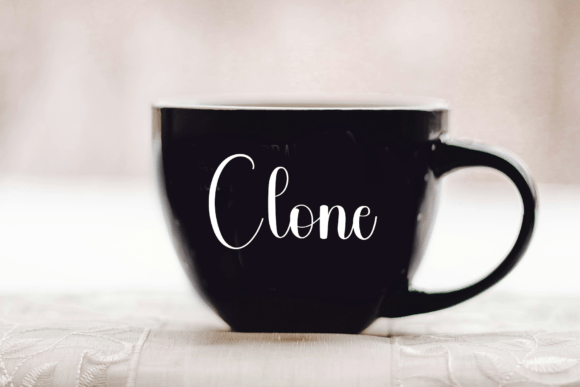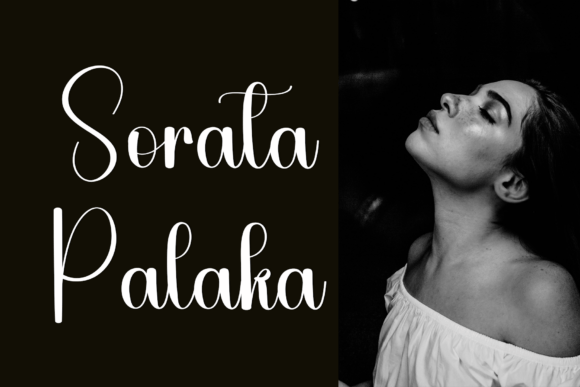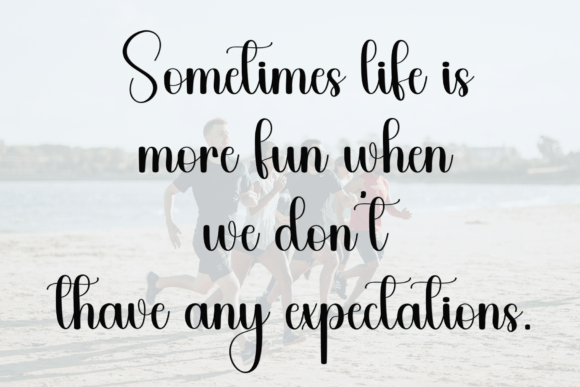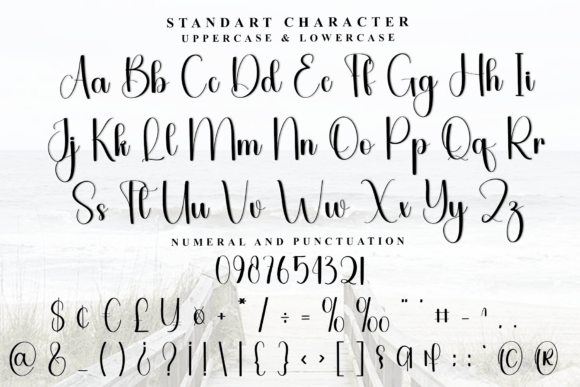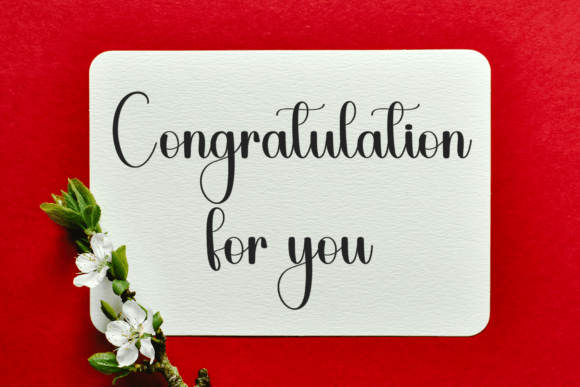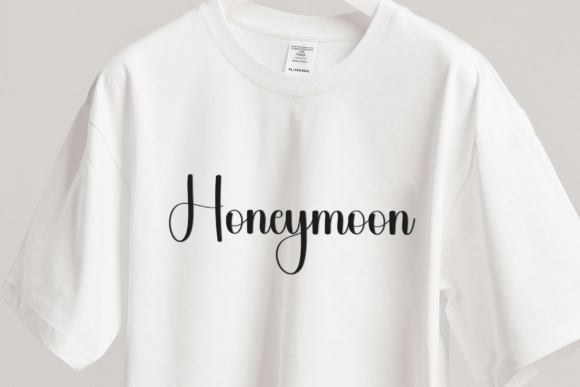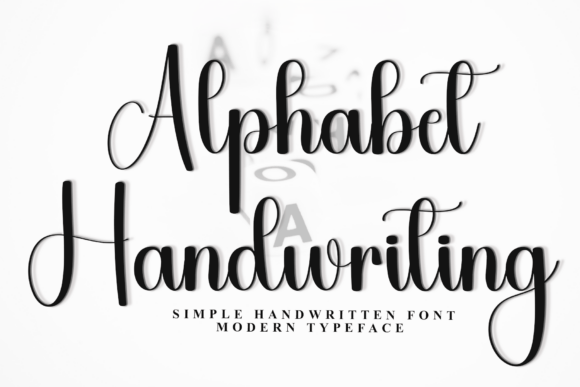
Introducing Alphabet Handwriting Font: A Festive and Merry Typeface for the Holiday Season
Are you looking for a typeface that captures the spirit of the holiday season? Do you want to add a touch of enchantment to your designs and make them stand out? Look no further than Alphabet Handwriting Font, a festive and merry typeface that’s perfect for greeting cards, gift tags, and holiday-themed projects.
What Makes Alphabet Handwriting Font Special?
Alphabet Handwriting Font is a decorative typeface that features whimsical elements and a cheerful flair. Its unique design brings a nostalgic ambiance to your words, making it perfect for designers and crafters who want to create holiday-themed projects that are both fun and elegant.
One of the standout features of Alphabet Handwriting Font is its PUA (Private Use Area) encoding. This means that you can access all of the amazing glyphs and ligatures with ease, giving you a wide range of creative possibilities. Whether you want to create custom greeting cards, gift tags, or holiday-themed posters, this font has got you covered.
Alphabet Handwriting Font is a versatile typeface that’s perfect for designers and crafters who want to add a personal touch to their projects. Here are just a few ways you can use this font:
• Greeting Cards: Create custom holiday greeting cards that are both festive and elegant. Use Alphabet Handwriting Font to add a personal touch to your cards and make them stand out.
• Gift Tags: Add a touch of whimsy to your gift tags with Alphabet Handwriting Font. This font is perfect for creating custom gift tags that are both fun and elegant.
• Holiday-Themed Projects: Use Alphabet Handwriting Font to create holiday-themed posters, flyers, and brochures. This font is perfect for adding a festive touch to your projects and making them stand out.
Key Features of Alphabet Handwriting Font
Here are just a few key features of Alphabet Handwriting Font:
• PUA Encoded: Access all of the amazing glyphs and ligatures with ease.
• Decorative Elements: Features whimsical elements and a cheerful flair.
• Festive and Merry: Perfect for holiday-themed projects and designs.
• Versatile: Use for a wide range of projects, from greeting cards to holiday-themed posters.
Tips for Using Alphabet Handwriting Font
Here are a few tips for using Alphabet Handwriting Font:
• Experiment with Different Sizes: Try using Alphabet Handwriting Font in different sizes to add visual interest to your projects.
• Pair with Other Fonts: Pair Alphabet Handwriting Font with other fonts to create a unique and interesting look.
• Use for Headings and Titles: Use Alphabet Handwriting Font for headings and titles to add a touch of elegance and sophistication.
Alphabet Handwriting Font is a festive and merry typeface that’s perfect for designers and crafters who want to add a touch of enchantment to their holiday-themed projects. With its decorative elements and whimsical flair, this font brings a cheerful and nostalgic ambiance to your words. Whether you’re creating custom greeting cards, gift tags, or holiday-themed posters, Alphabet Handwriting Font is the perfect choice.